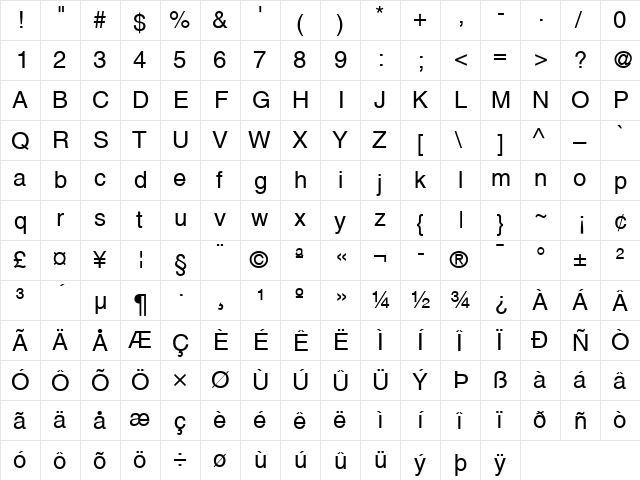
Helonia Regular
Design Context for Helonia Typeface
Helonia takes a measured approach to typography — its balanced proportions and neutral character make it a reliable workhorse for both digital and print work.
Pro Tip: Use Helonia in both headline and body roles to test its range before committing to a single application.